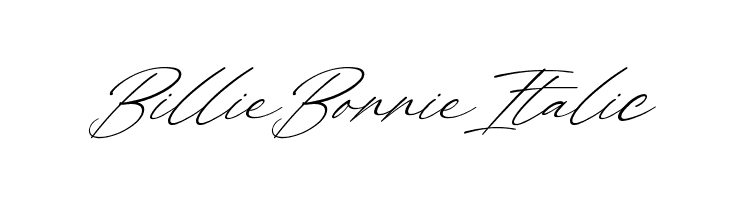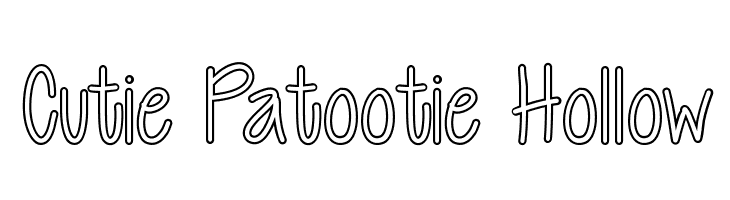
( Fonts by Vanessa Bays - bythebutterfly.com )
A playful, hollow, hand-drawn font with a whimsical and informal style.
A bold, brush-stroke style font with a dynamic and artistic appearance.
( Fonts by Belina Studio )
A whimsical font blending serif and script styles for a playful yet elegant look.
( Fonts by The Docallisme )
A playful, bold, hand-drawn font with outlined characters.
( Fonts by Skiiller Studio )
A bold, playful font with rounded, bubbly characters.
( Fonts by Peter Wiegel - www.peter-wiegel.de )
A bold, dynamic script font with connected characters and a strong presence.
( Fonts by Mans Greback - www.mawns.com )
A bold, decorative font with sweeping strokes and intricate curves.
A modern, geometric font with thin lines and a clean, minimalist style.
A modern, rounded typeface with a friendly and approachable design.